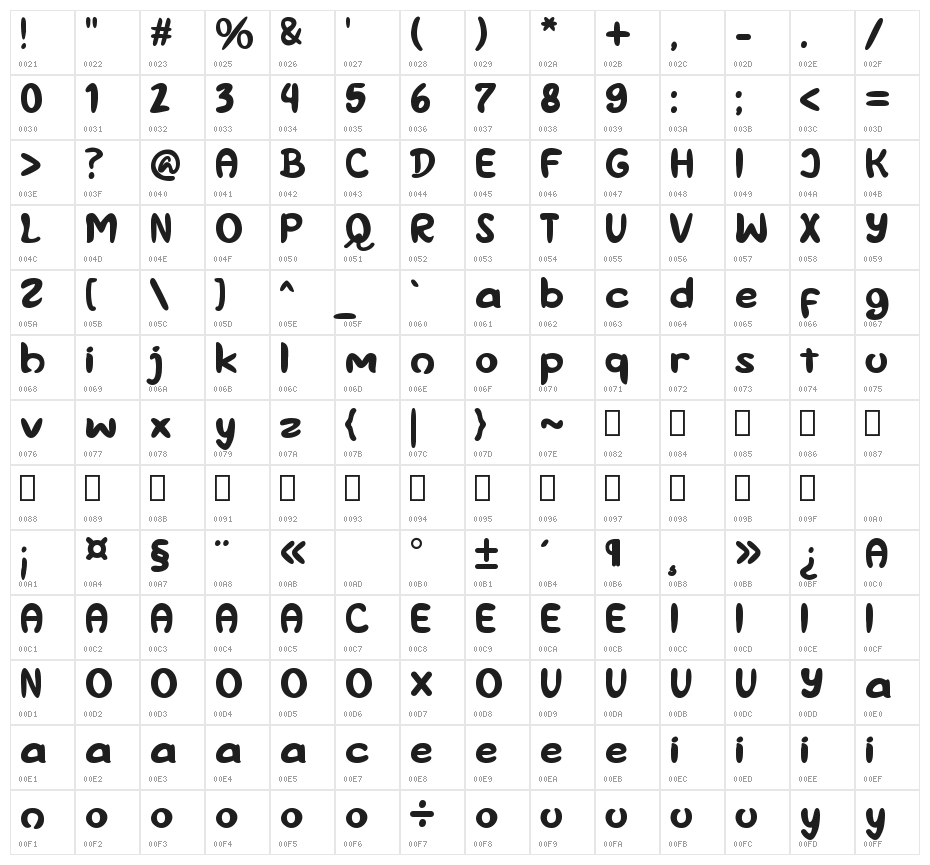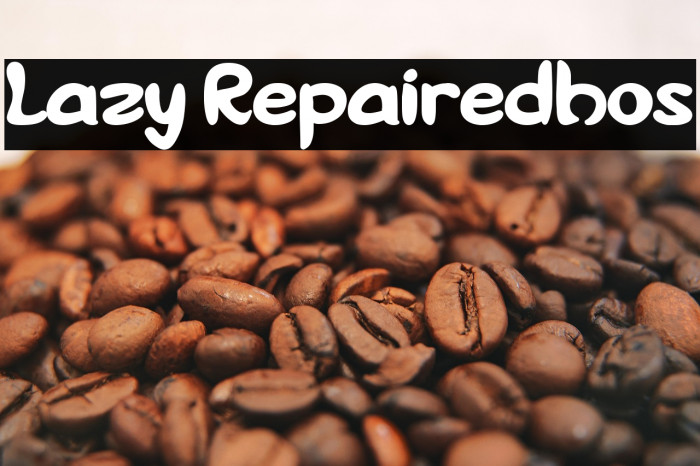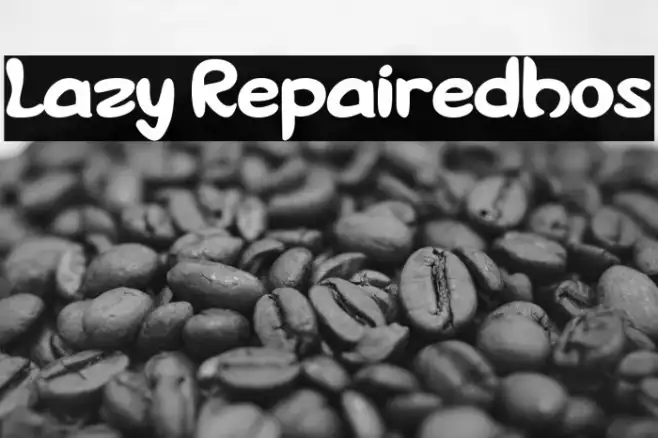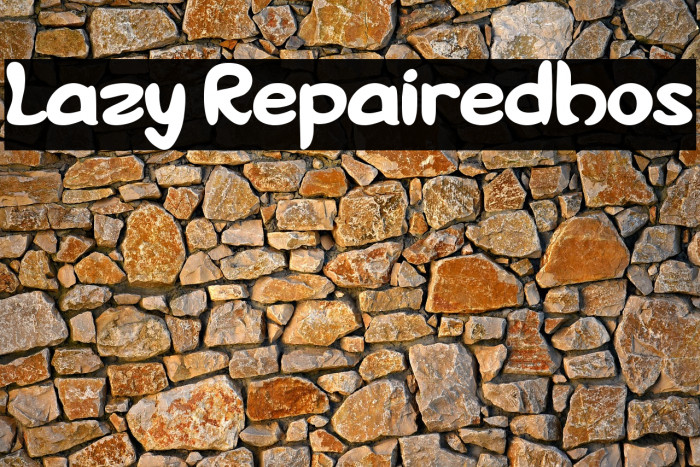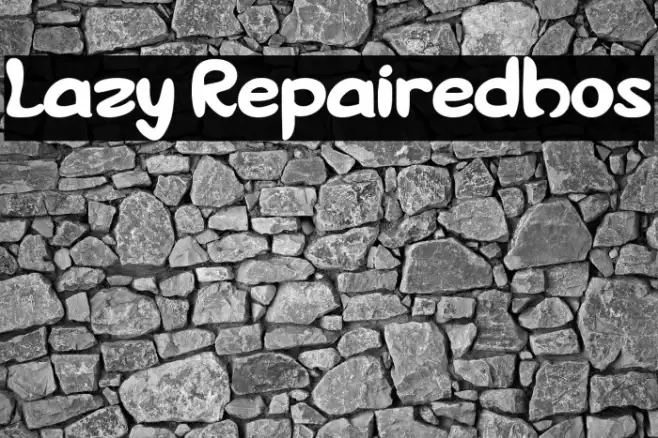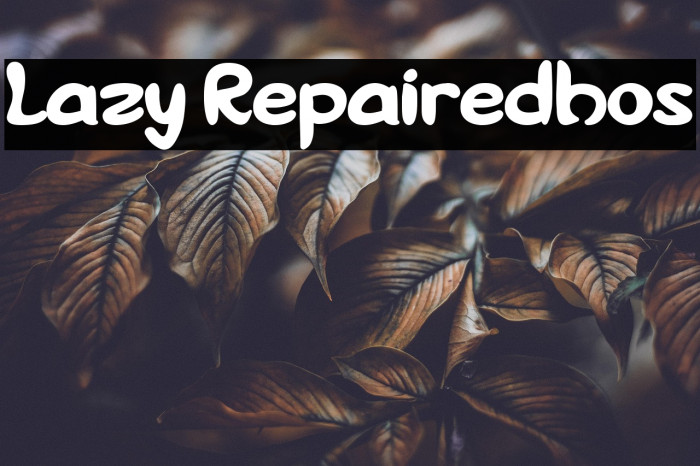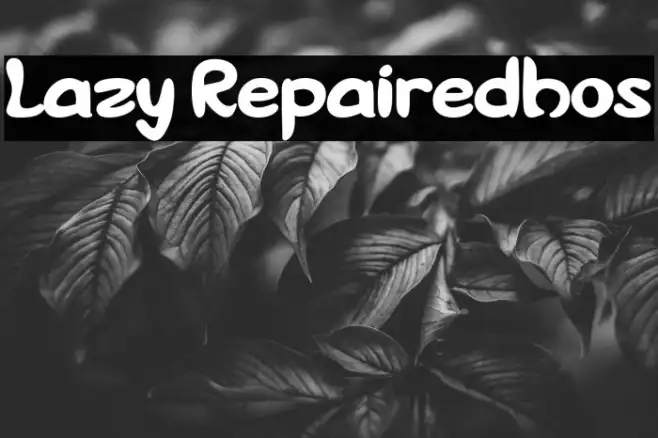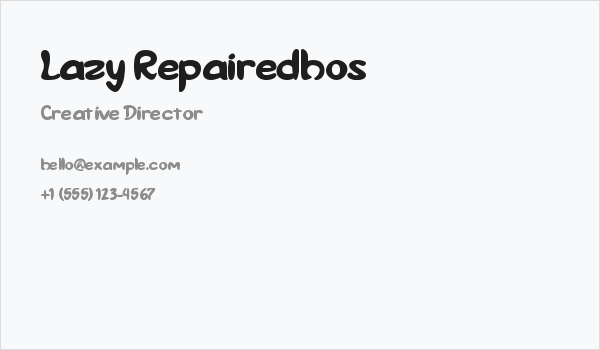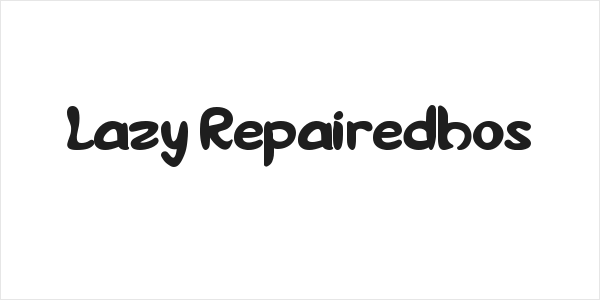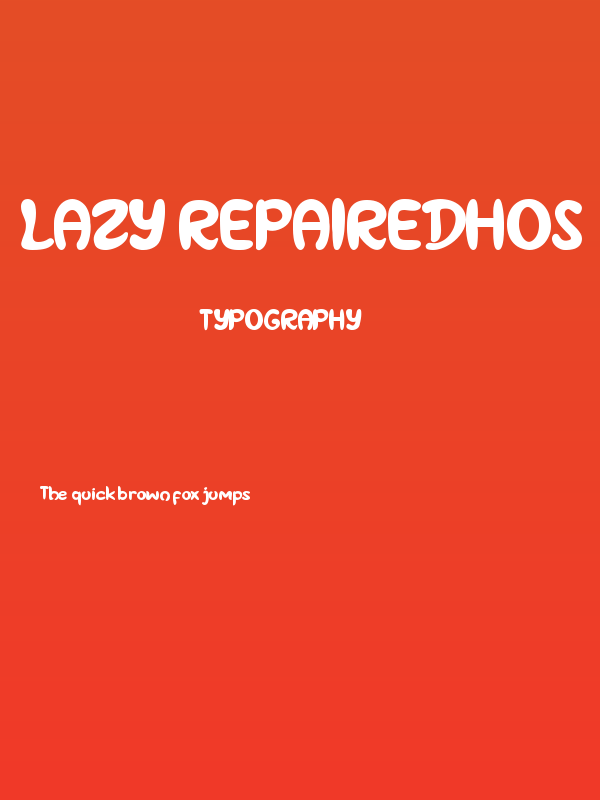
Lazy Repairedhos Font
Lazy Repairedhos Description
This playful and bold font features rounded, thick strokes that give it a friendly and approachable appearance. The characters are designed with a smooth, flowing style that adds a sense of movement and energy. The uppercase and lowercase letters maintain a consistent weight, providing a uniform look across the text. The numbers and special characters are equally bold and rounded, ensuring readability and visual harmony. This font is ideal for projects that require a fun and informal touch, such as children's books, playful branding, or creative posters.
| Overall Style | Playful, Energetic |
| Proposed Projects | Children's books, playful branding, creative posters, informal invitations. |